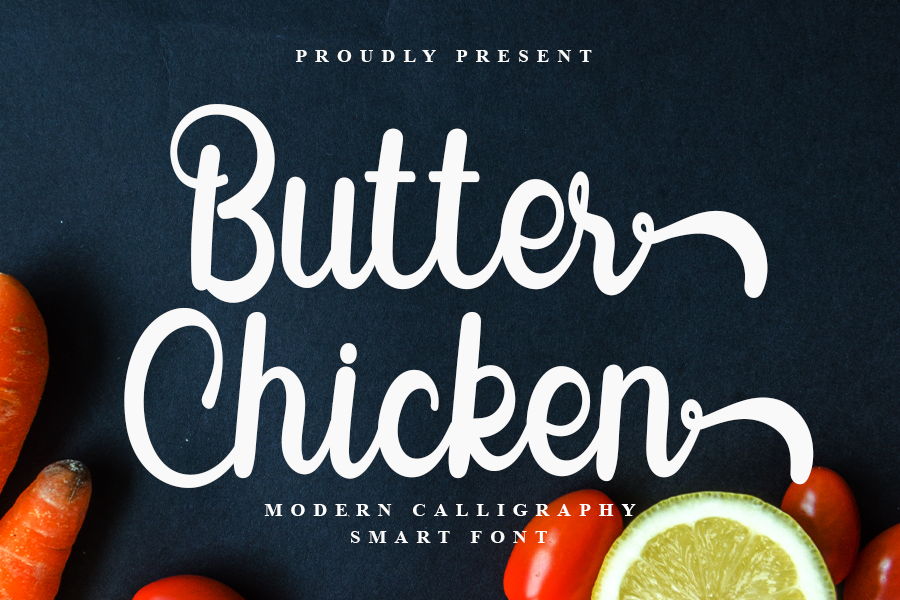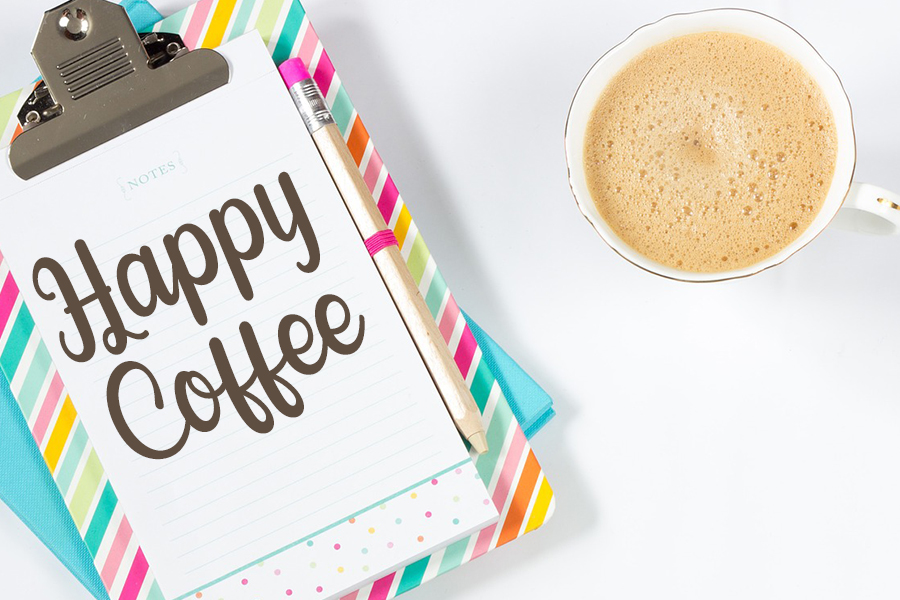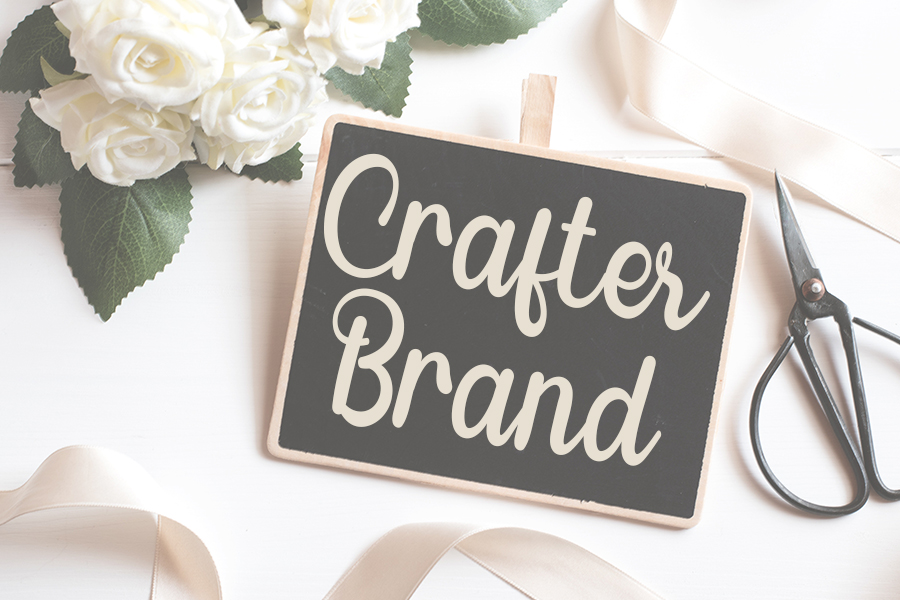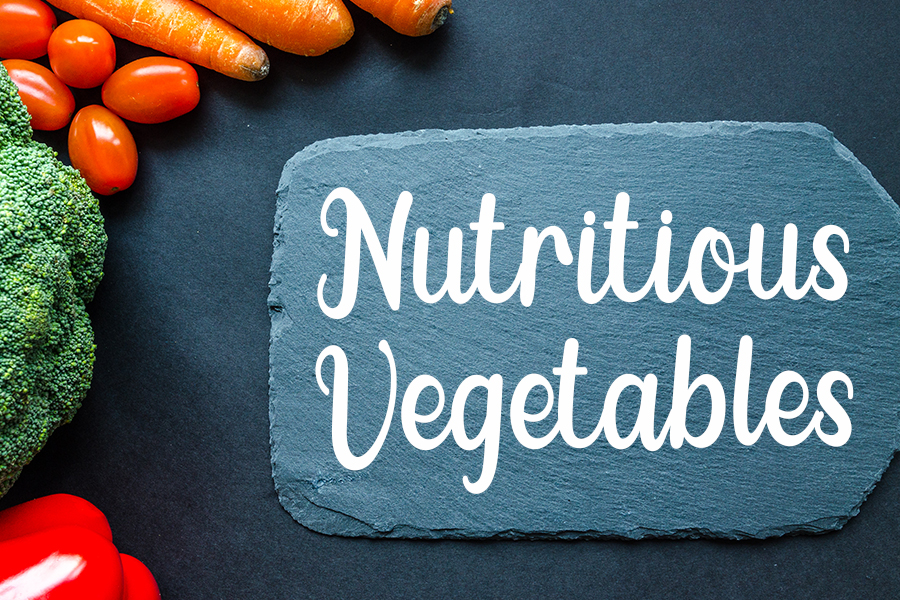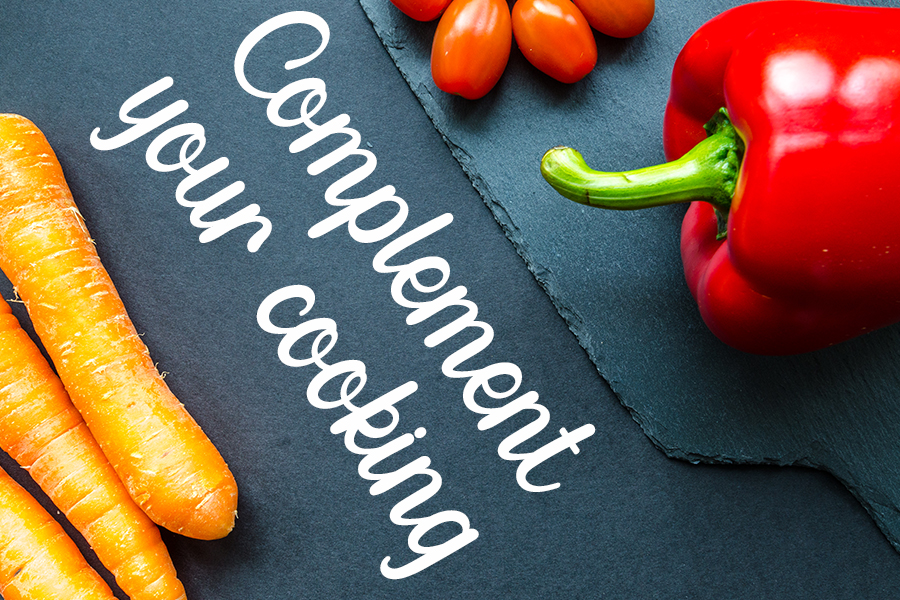
Butter Chicken Font
Butter Chicken Script Font
This is a relaxed and beautiful paint brush handwritten font. It can be used for various purposes such as logos, wedding invitations, headings, t-shirts, letterhead, signage, labels, news, posters, badges and so much more.